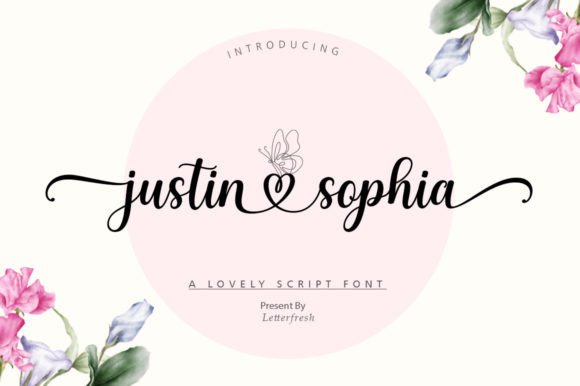
Discover the captivating beauty of Justin Sophia Font, a modern and lovely addition to your creative endeavors. Crafted with care by LetterFreshStudio, this script font is designed to infuse your projects with a harmonious and handwritten charm.
Unlock a world of possibilities as you explore the versatility of Justin Sophia. Whether you're creating invitations, greeting cards, posters, or quotes, this font effortlessly adds a sensitive touch that resonates with your audience. Its elegant strokes and graceful curves will leave a lasting impression.
Immerse yourself in the allure of Justin Sophia as its characters dance across your screen or page. Each letter is meticulously crafted to convey a sense of warmth and authenticity. Your words will come alive, creating an emotional connection with your readers.
With Justin Sophia, your designs will stand out from the crowd, capturing attention and sparking curiosity. This font is your secret weapon to create stunning visuals that leave a lasting impact. Let your imagination run wild as you experiment with different styles and layouts, confident in the knowledge that Justin Sophia will enhance your work beautifully.
Embrace the power of Justin Sophia Font and unleash your creativity like never before. Elevate your projects to new heights with this best-in-class font for modern UI. Whether you're a professional designer or a passionate hobbyist, Justin Sophia will be your trusted companion, always ready to bring your vision to life.